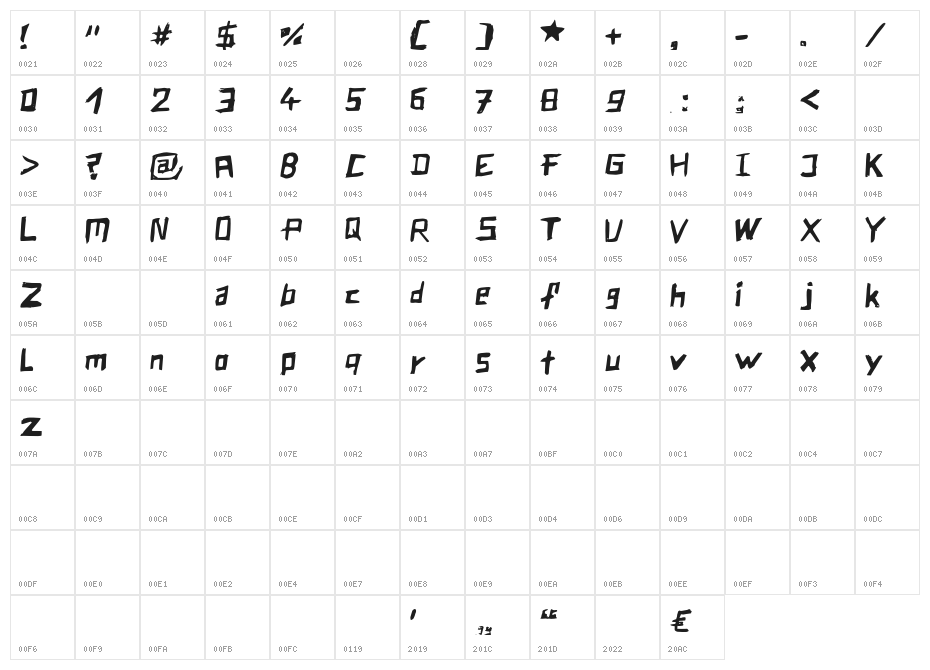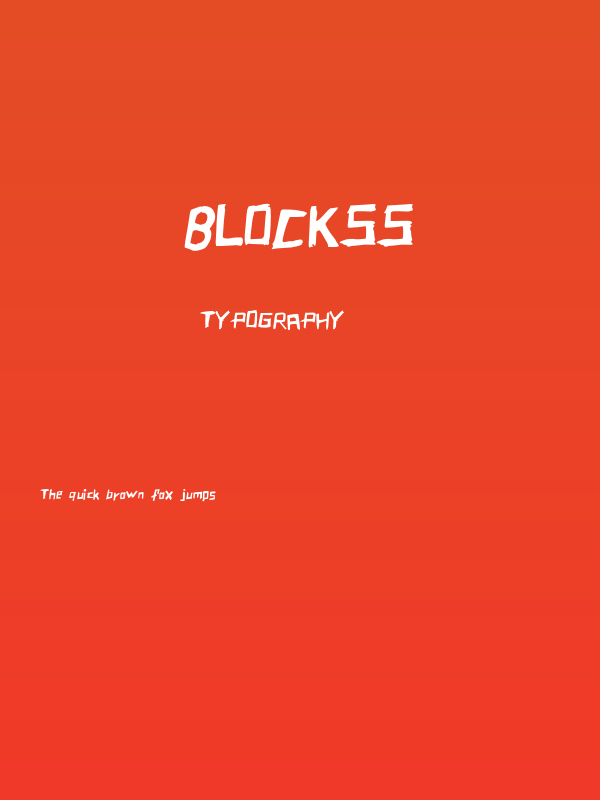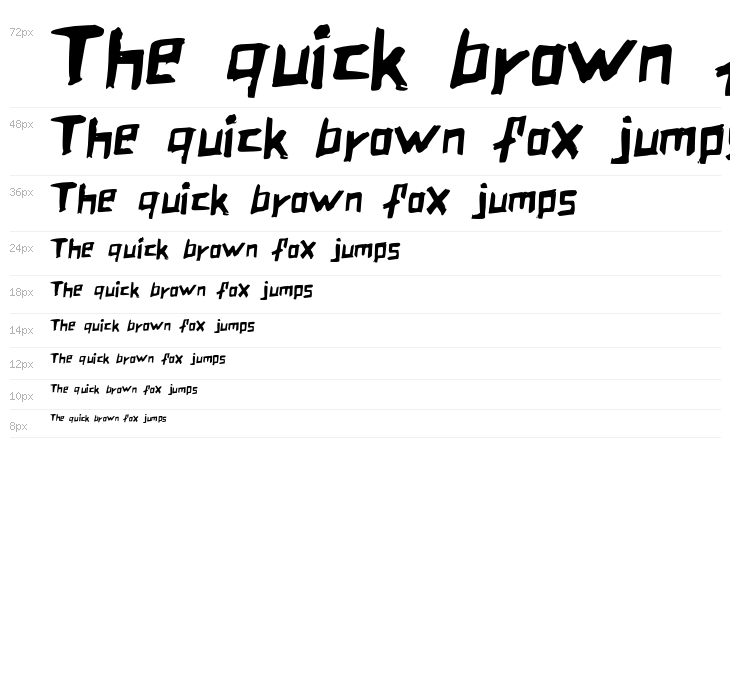
BLOCKSS Font
BLOCKSS Description
This font exhibits a bold and dynamic style with a hand-drawn appearance. The letters are irregular and slightly tilted, giving a sense of movement and energy. The strokes are thick and uneven, adding a raw and edgy feel to the text. The uppercase and lowercase letters maintain a consistent style, while the numbers and special characters complement the overall aesthetic. This font is ideal for projects that require a strong, impactful visual presence.
| Overall Style | Modern, Edgy |
| Proposed Projects | Perfect for posters, album covers, graffiti-inspired designs, and branding that aims to convey a sense of rebellion or creativity. |